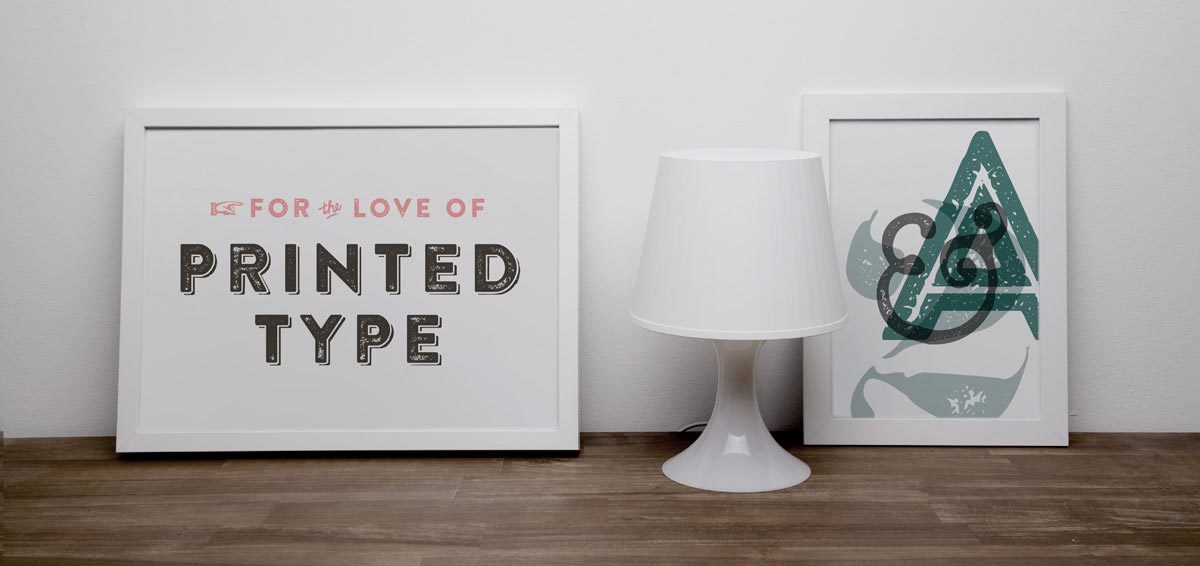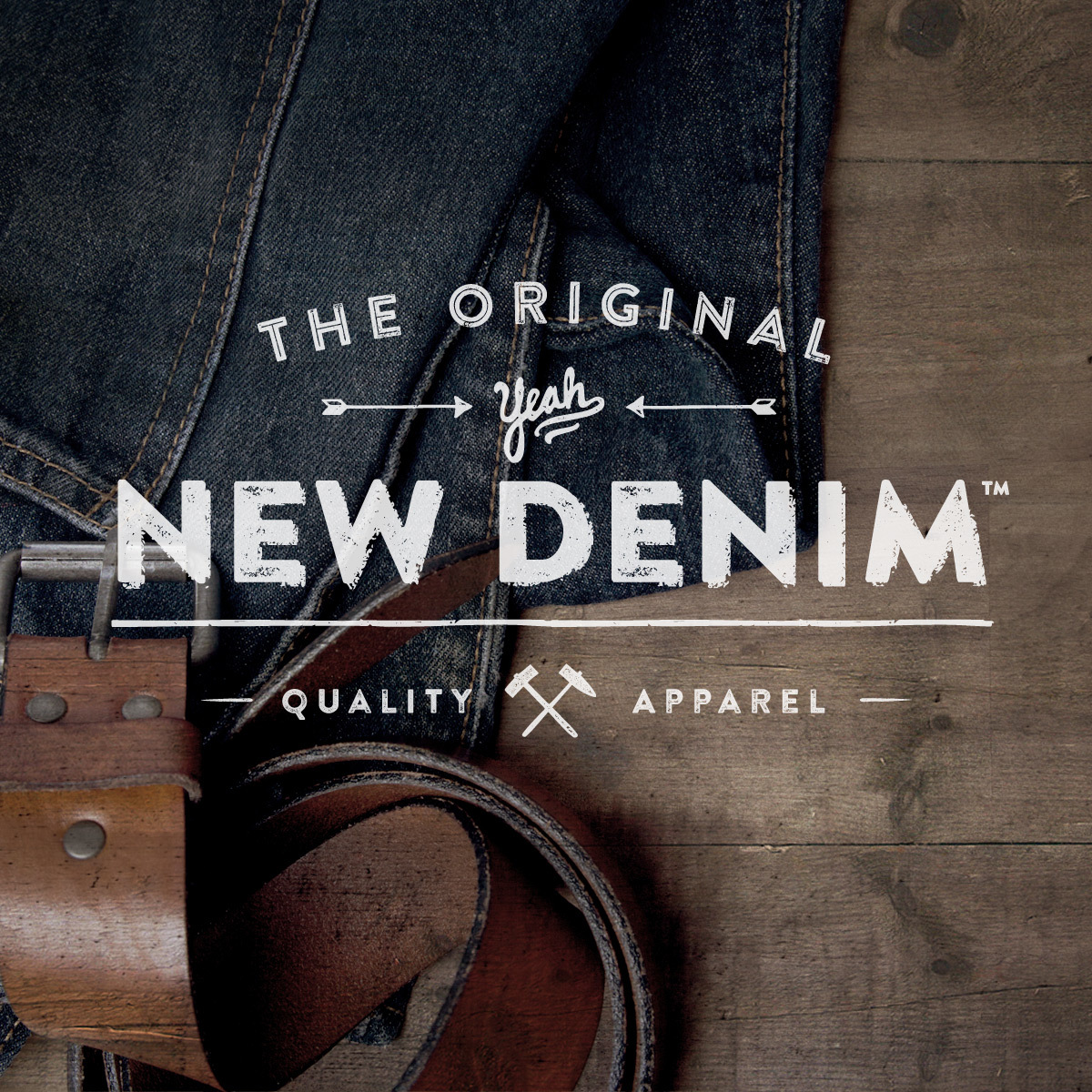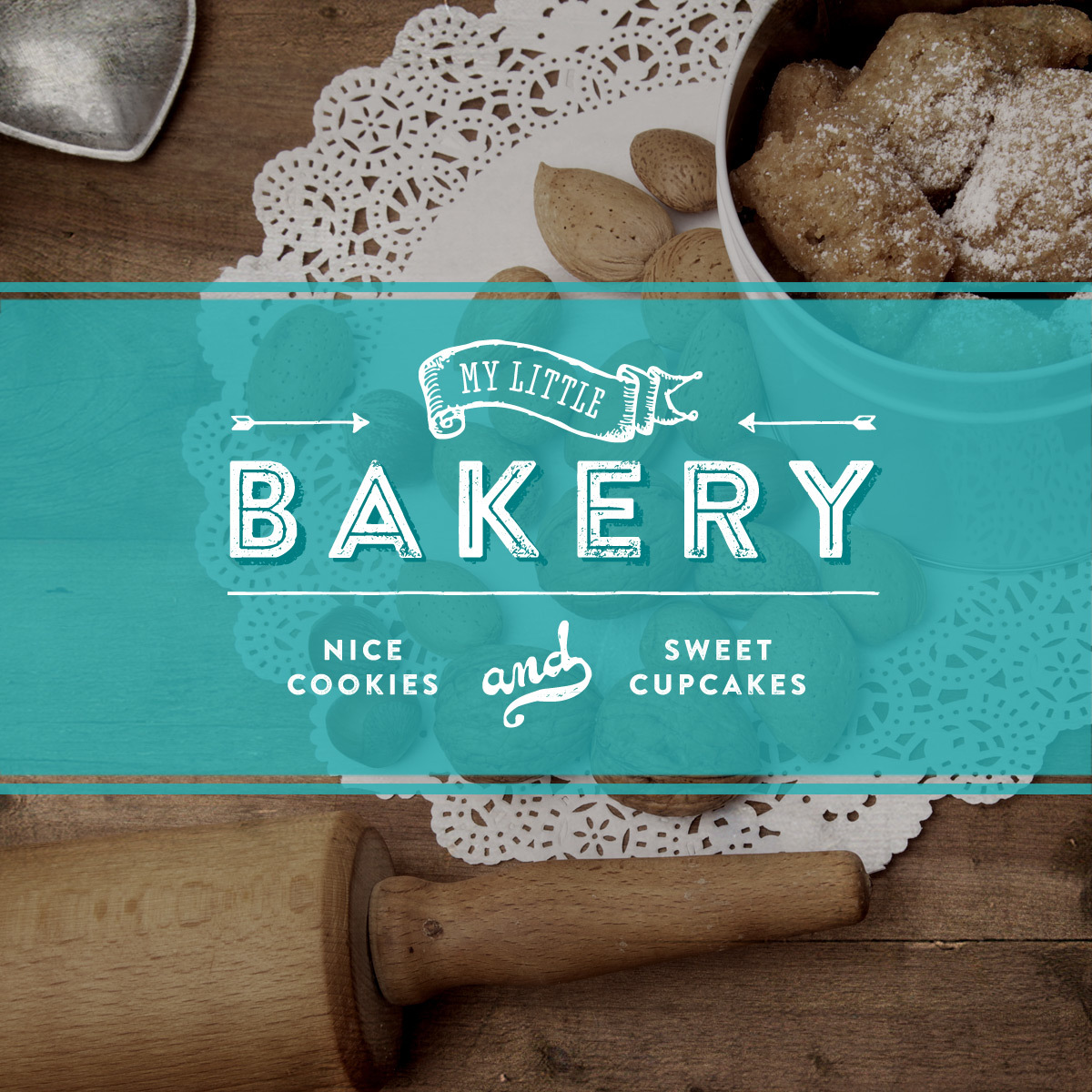
Brandon Printed is based on the famous Brandon Grotesque typeface. It has an eroded, printed look with variations of every letter by using different styles. With several different styles like a shadowed version, an inline version and a double printed version you can create a lot of lovely combinations. The Brandon Printed package also contains a set with 95 Extras like arrows, catchwords, stars, emblems numbers & lines.
Brandon Printed
Handmade. Printed. Adventurous.
All 8 Styles
One
One Shadow
Two
Two Shadow
Inline
Double
Shadow
Extras
For the Love or printed type…
A handmade version of a modern classic typeface. It is perfect for posters, packaging or cowboys and a cool, rough addition to the Brandon Family.
Ornaments
Besides the fonts Brandon Printed includes a set of 95 extras with arrows, symbols, catchwords, ornaments and a special set of numerals. The full set of extras is shown in the character set overview below.
Brandon Printed
Brandon Printed Extras
What’s inside? Character Set Overview
Brandon Printed has 305 characters and supports 22 languages:
Afrikaans, Basque, Breton, Catalan, Danish, Dutch, English, Finnish, French, Gaelic (Irish, Scots), German, Icelandic, Indonesian, Irish, Italian, Norwegian, Portuguese, Saami (Southern), Spanish, Swahili, Swedish.